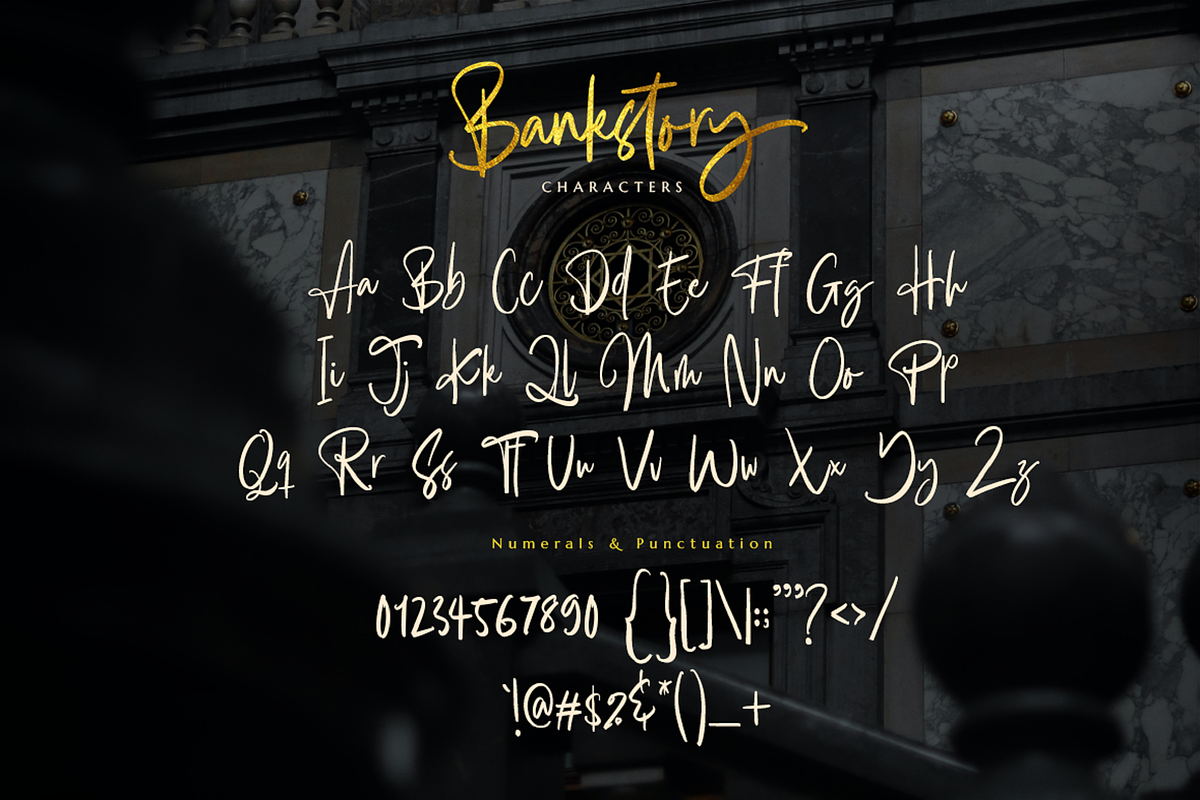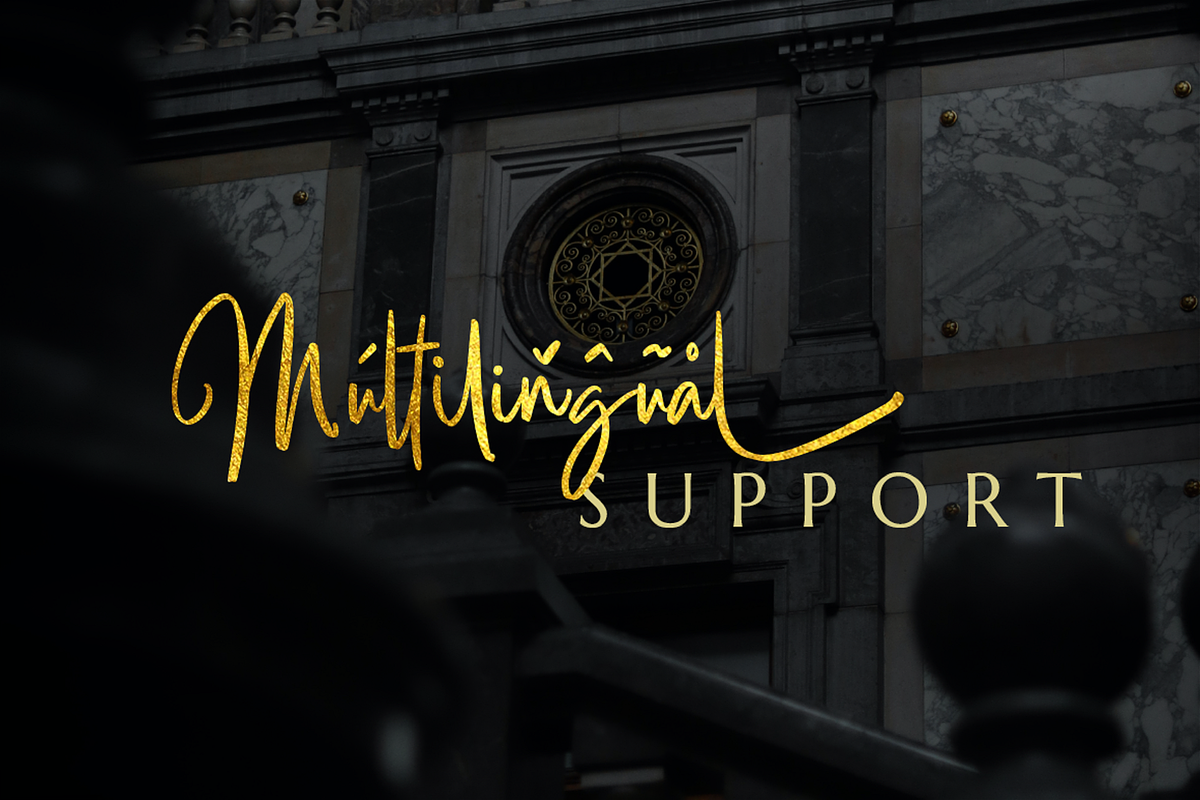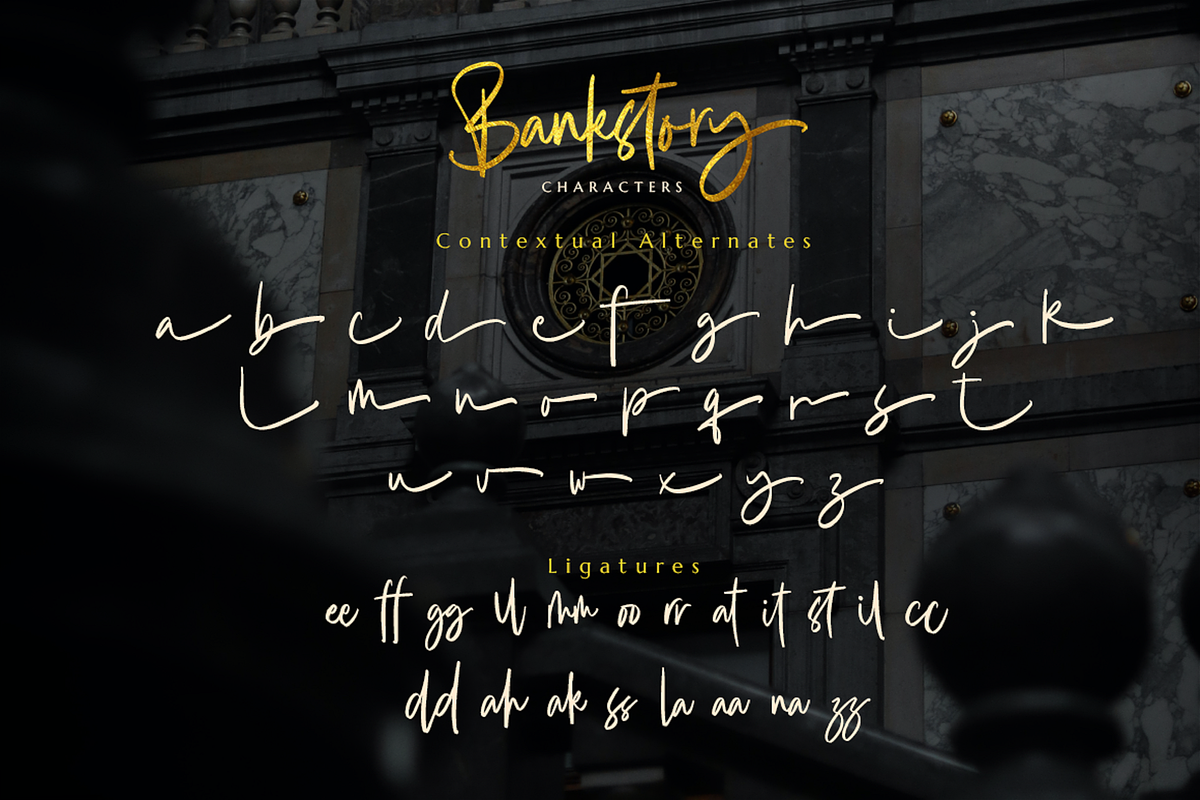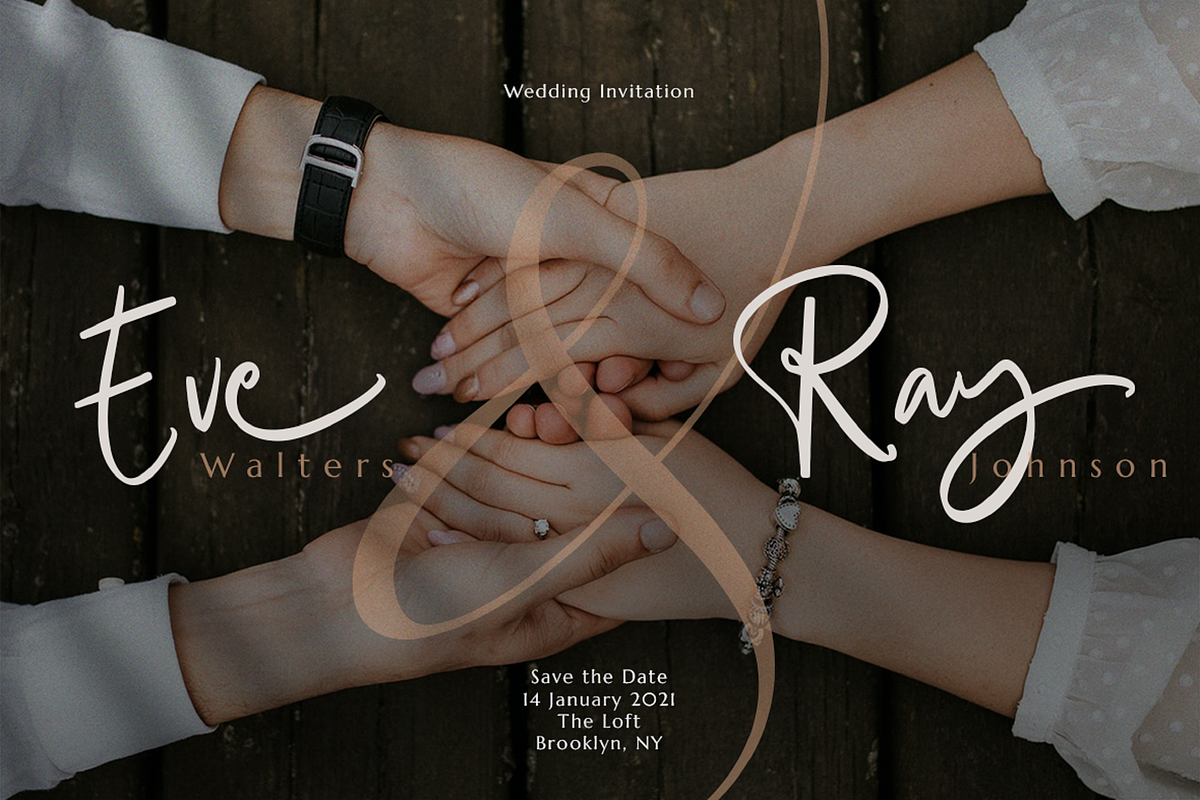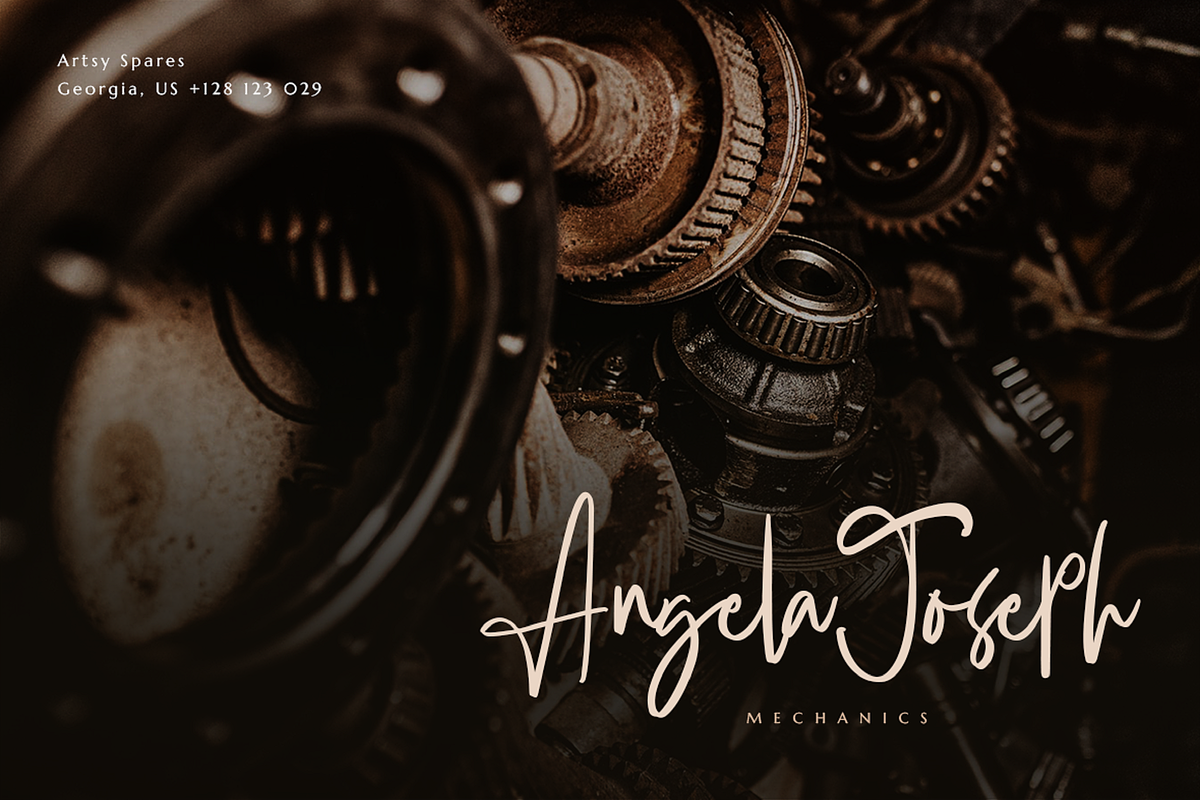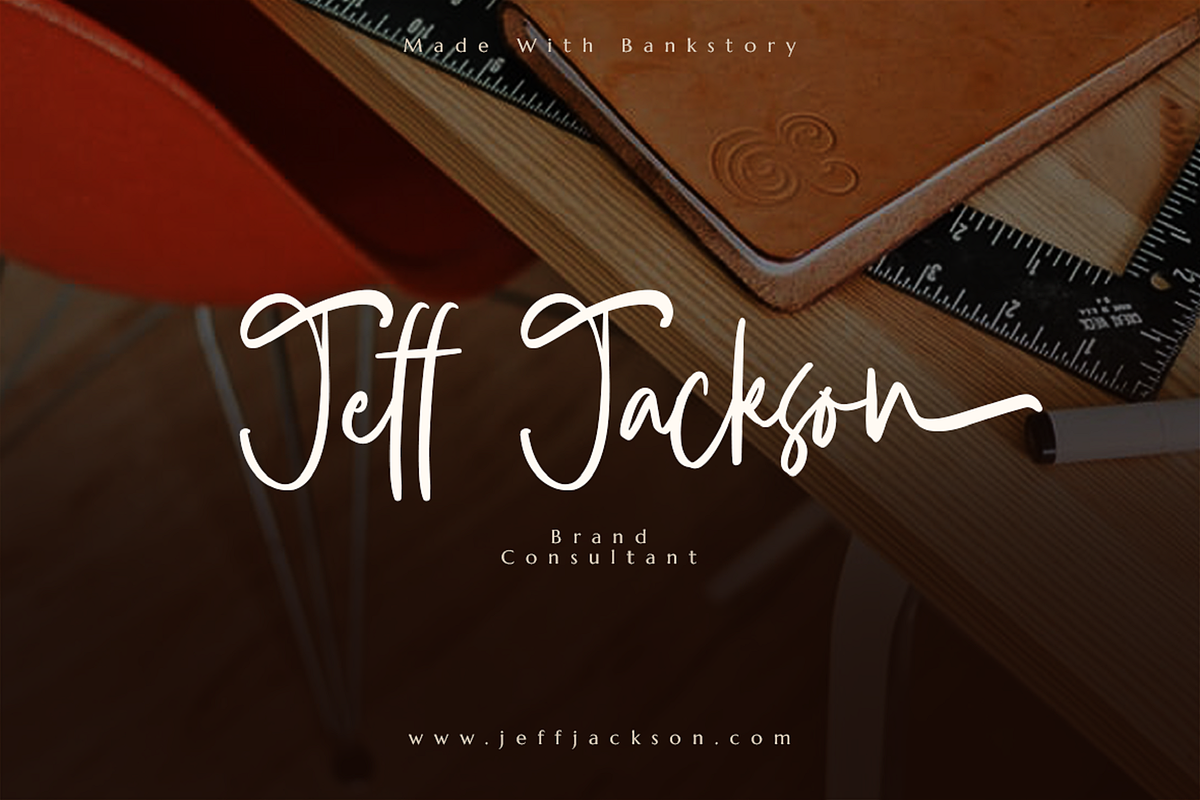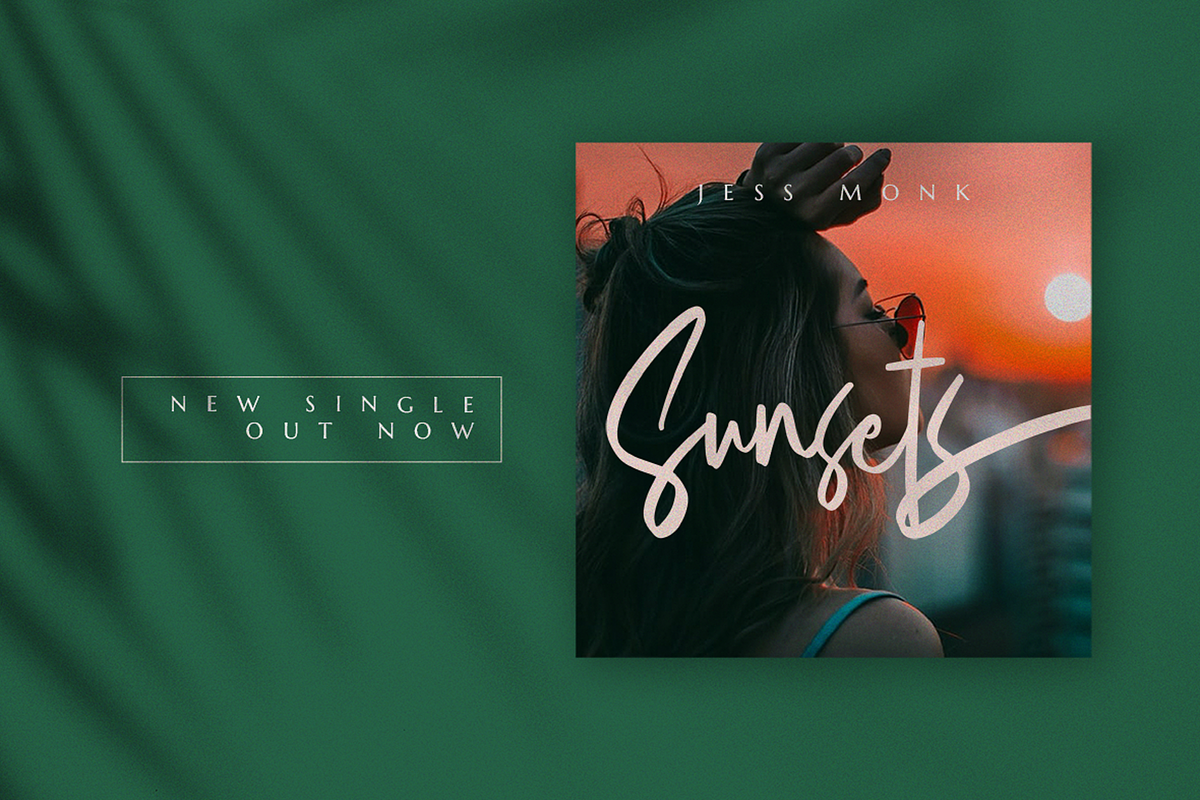
Bankstory - Handwritten Font
Ready to enchant your audience and enhance your branding?
Introducing Bankstory - An Elegant Handwritten Font. This font is all about Elegance, Style, Luxury, Professionalism, and Authority.
With elegance and passion edged into every curve and twist of this handwritten font - you’ll be sure to reign in sales and make lasting impressions.
Bankstory can be used for a variety of different content needs such as headings, logos, business cards, printed quotes, cards, packaging, resumes, and even your website or social media branding.
Let the world see your ideas with Bankstory - An Elegant Handwritten Font.
Multilingual & Ligature Support
Contextual Alternatives
Full sets of Punctuation and Numerals